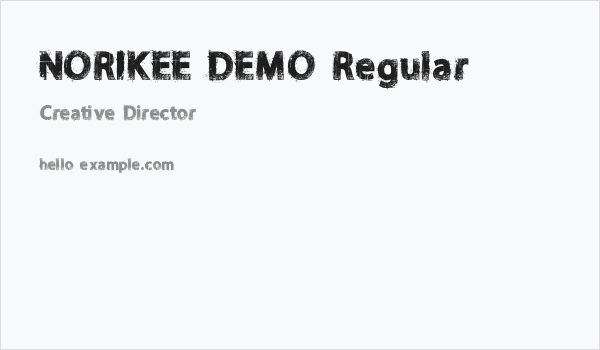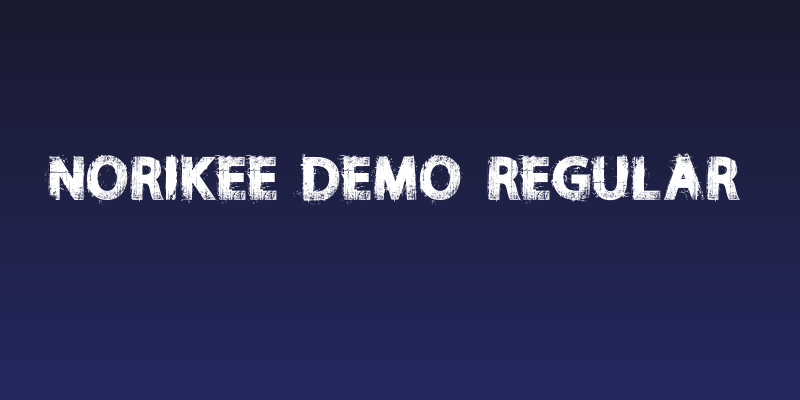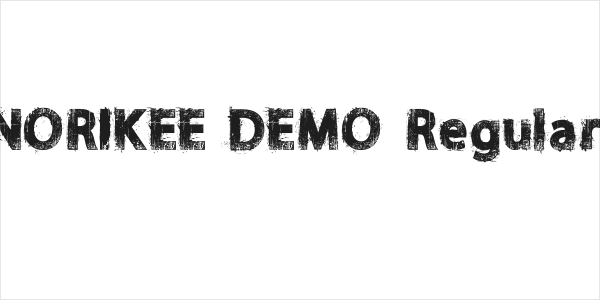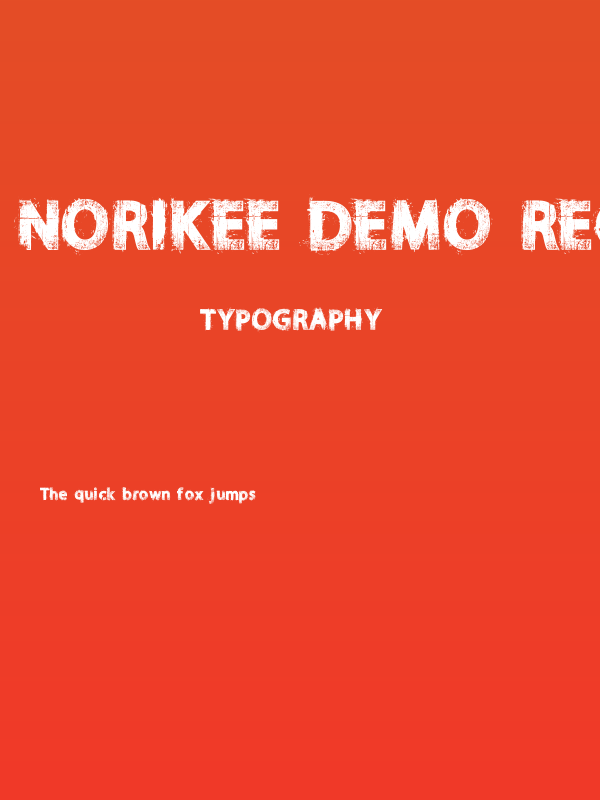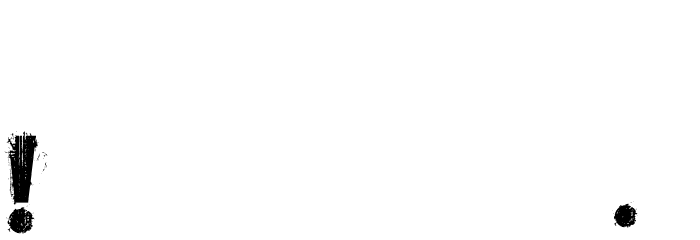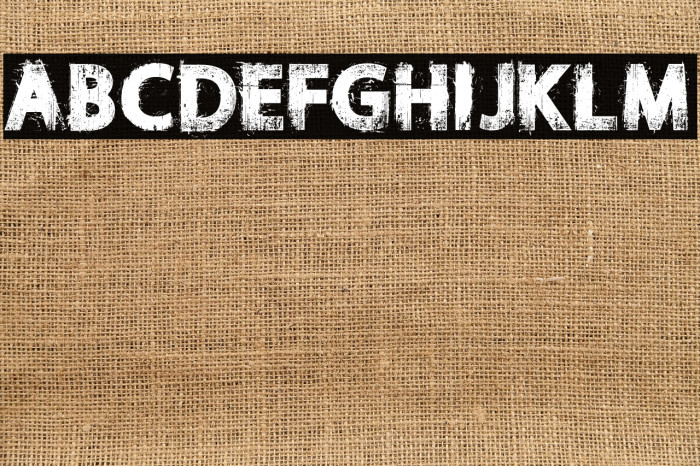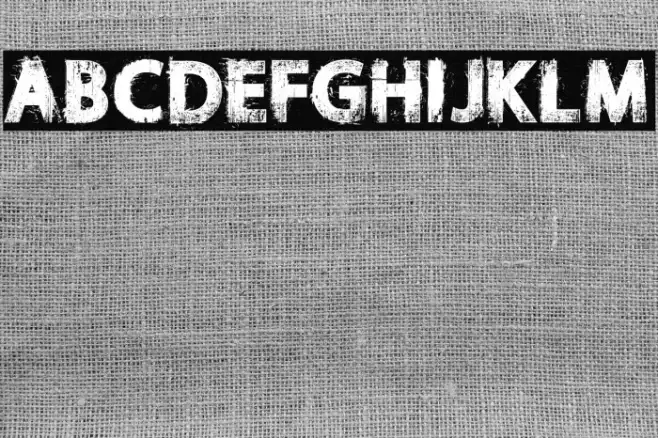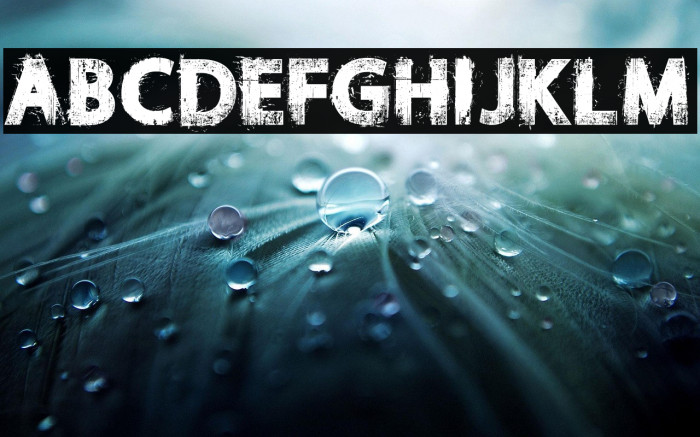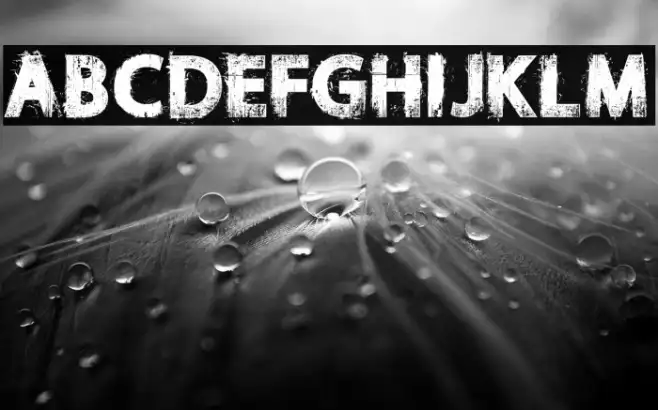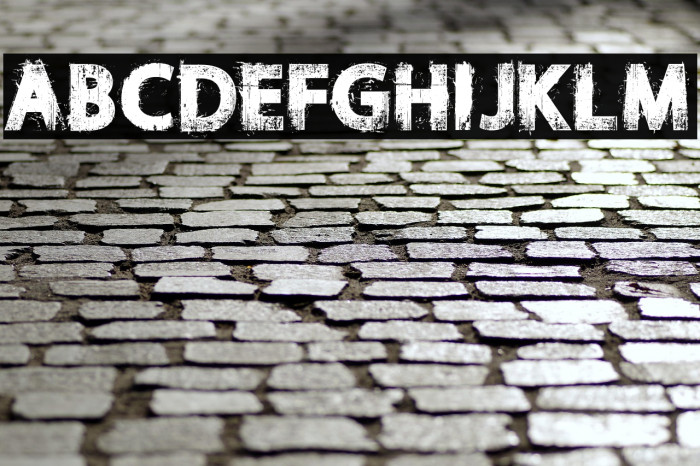
NORIKEE DEMO Regular Font
NORIKEE DEMO Regular Description
This font features a bold, distressed style with a grunge texture that gives it a rugged and edgy appearance. The characters are uppercase and lowercase letters, along with numbers and a few special symbols. The texture appears as if the letters have been worn or eroded, adding a sense of depth and character. This style is reminiscent of urban or industrial themes, making it suitable for projects that require a raw, authentic look. The font maintains a consistent weight throughout, with a medium to high contrast in stroke thickness due to the distressed effect.
| Overall Style | Grunge, Urban, Industrial |
| Proposed Projects | Album covers, posters, streetwear branding, urban-themed graphics, and event flyers. |